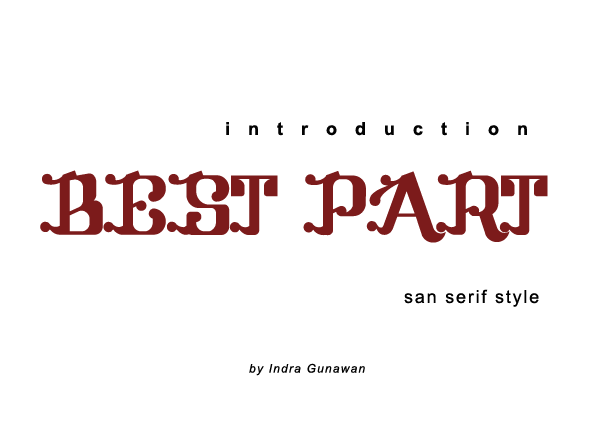
Preview and download Best Part Font. Created by Indra Gunawan in Gothic Various styles with 100% Free license.
Another font creation in San Serif style. I put tittle Best Part |